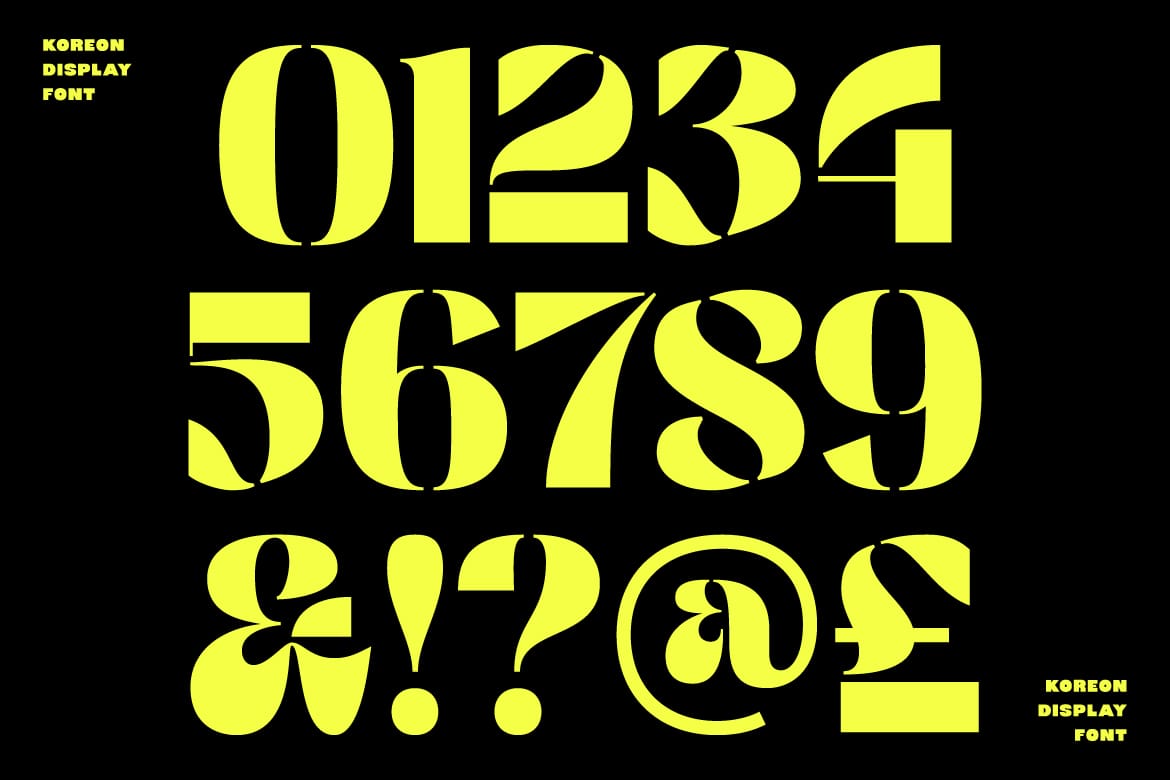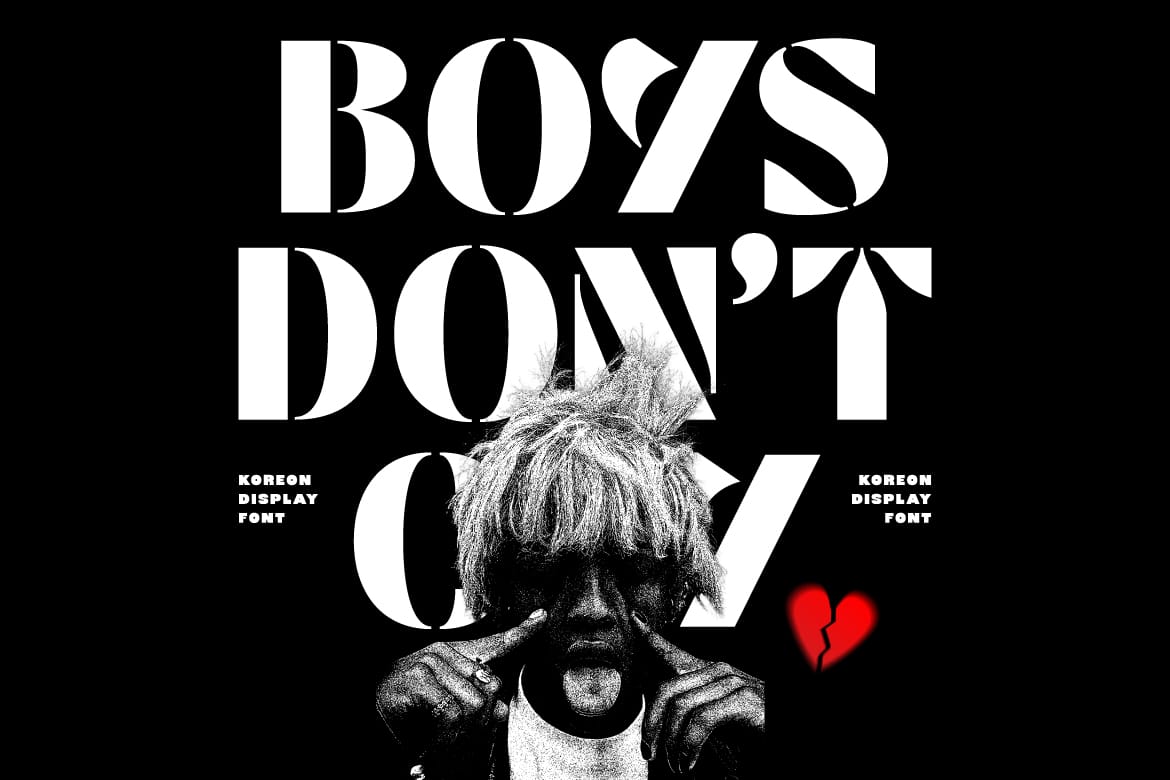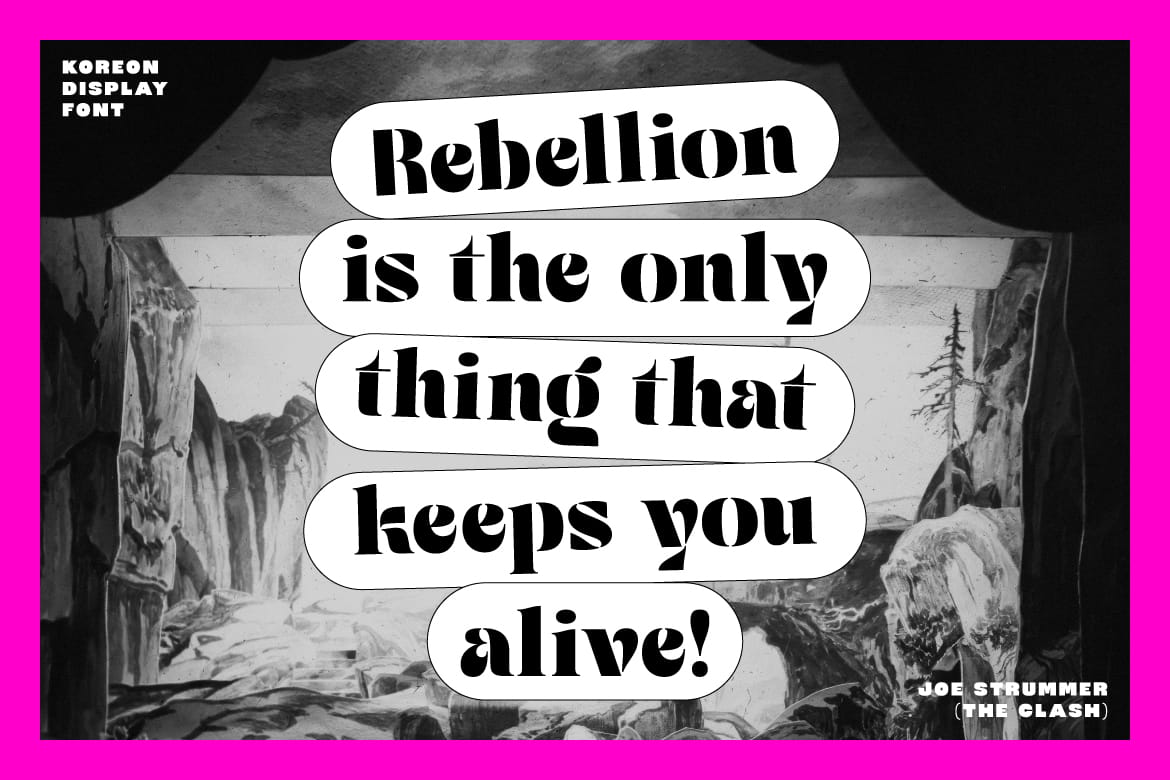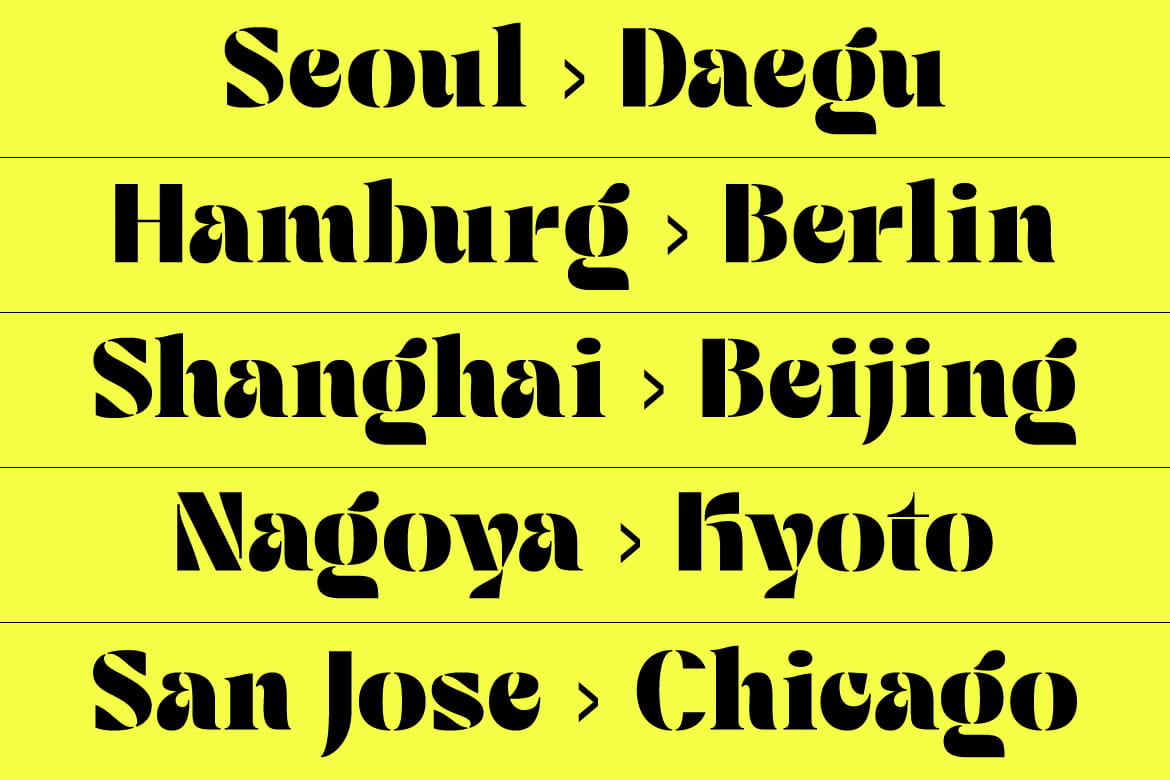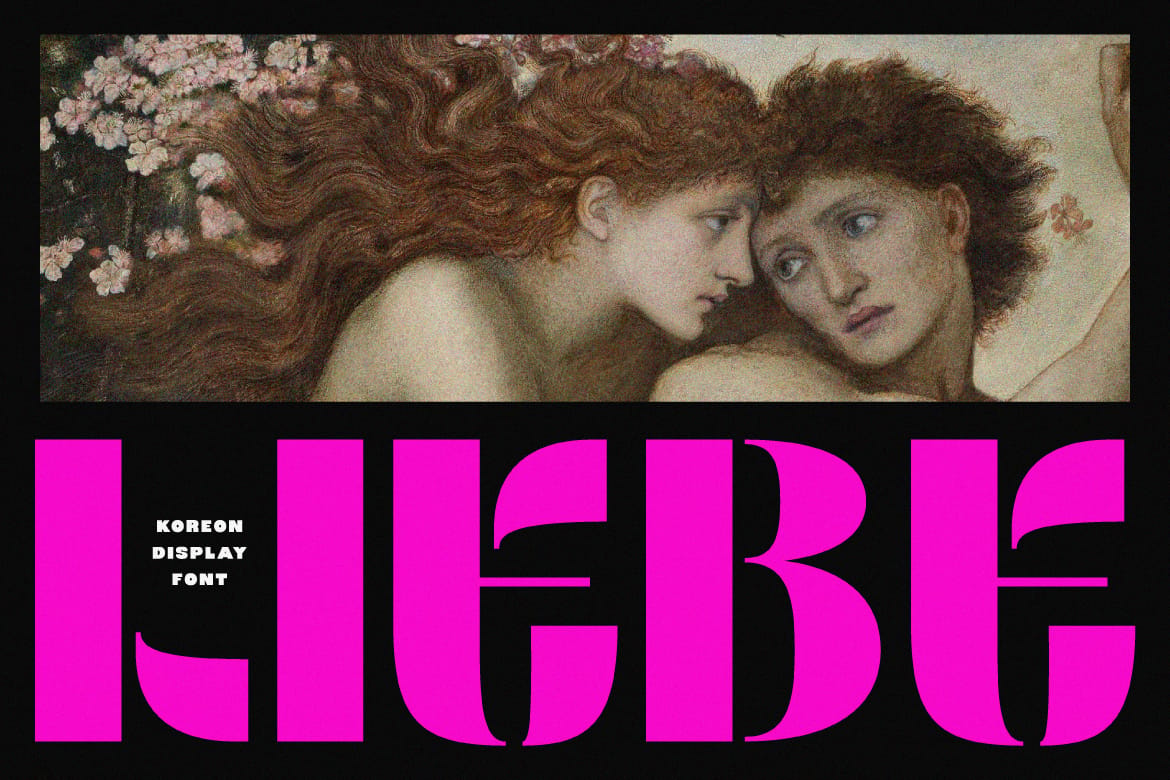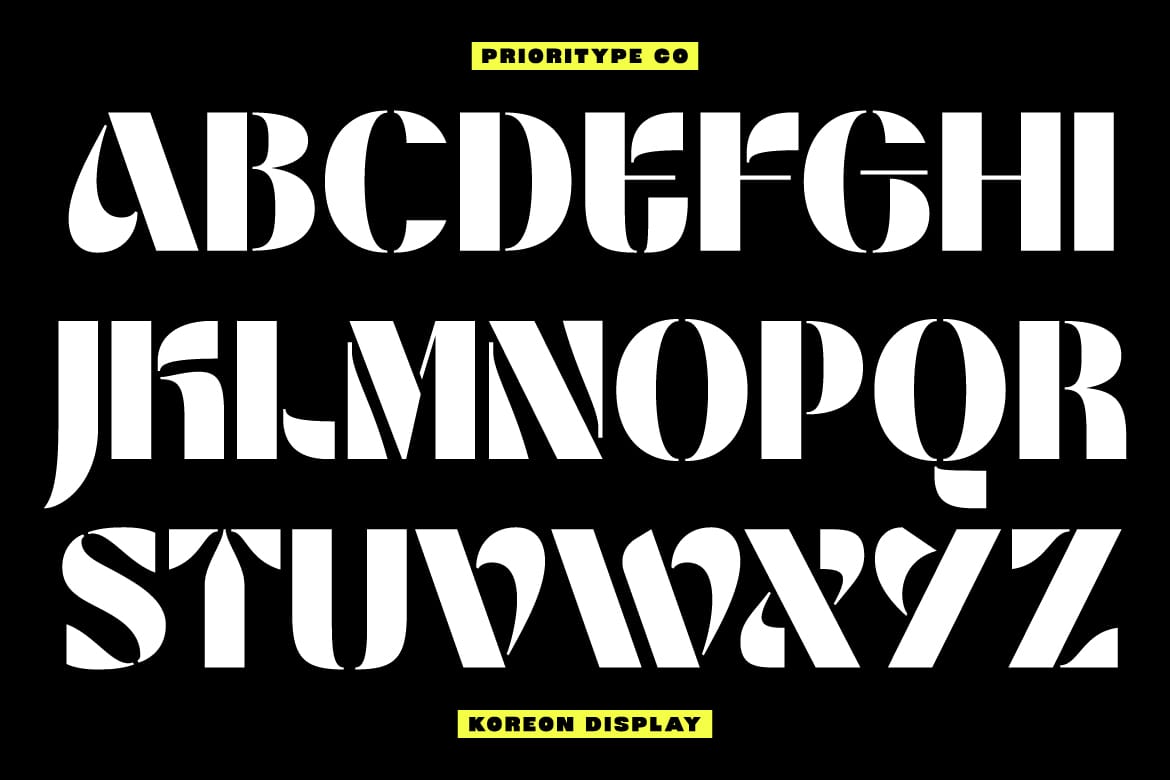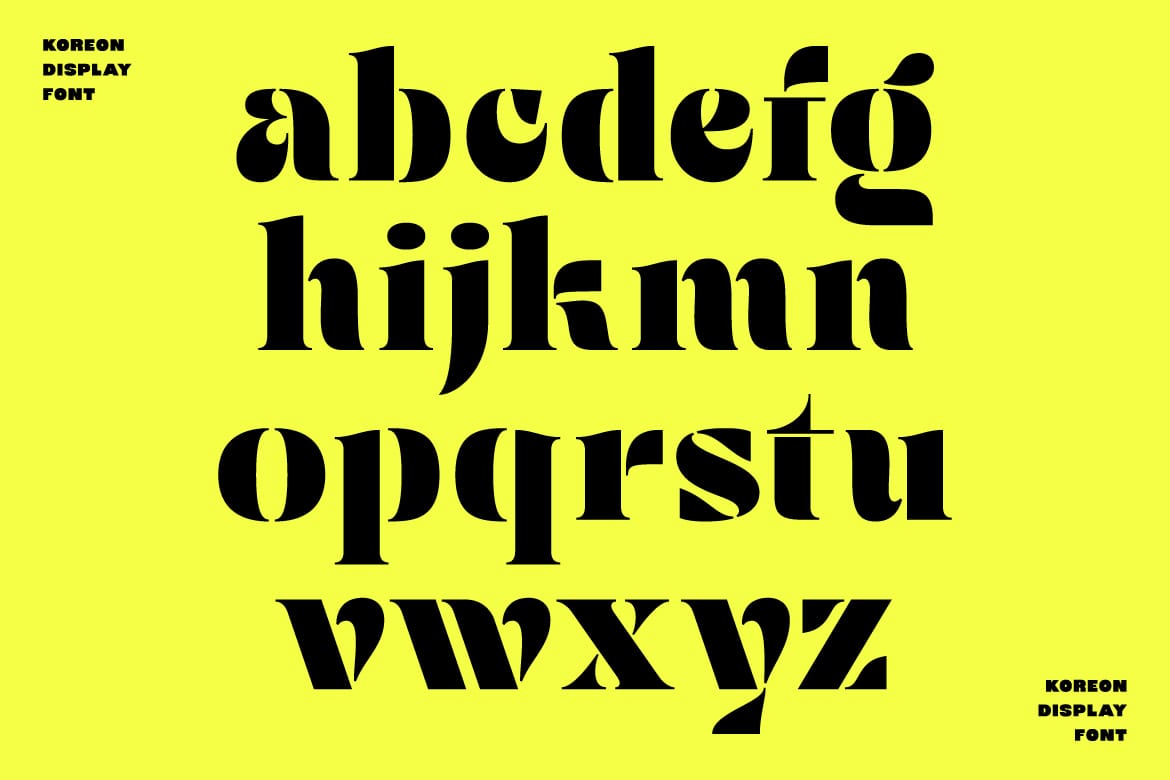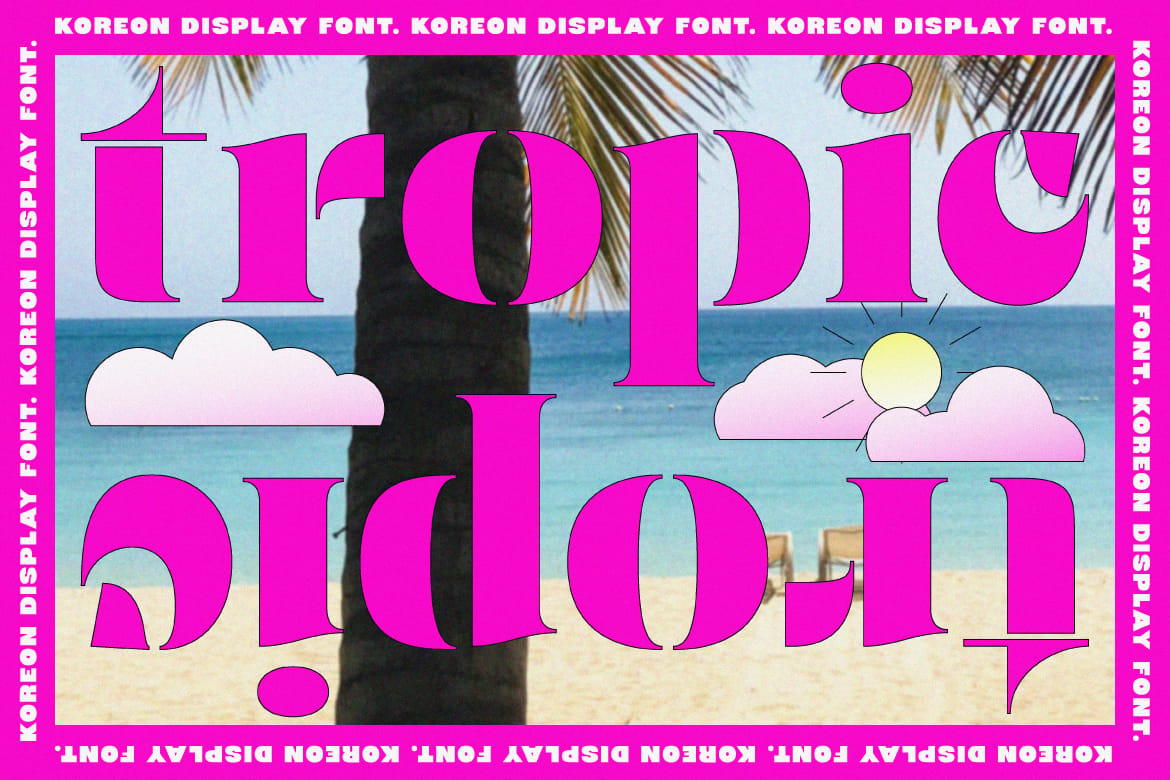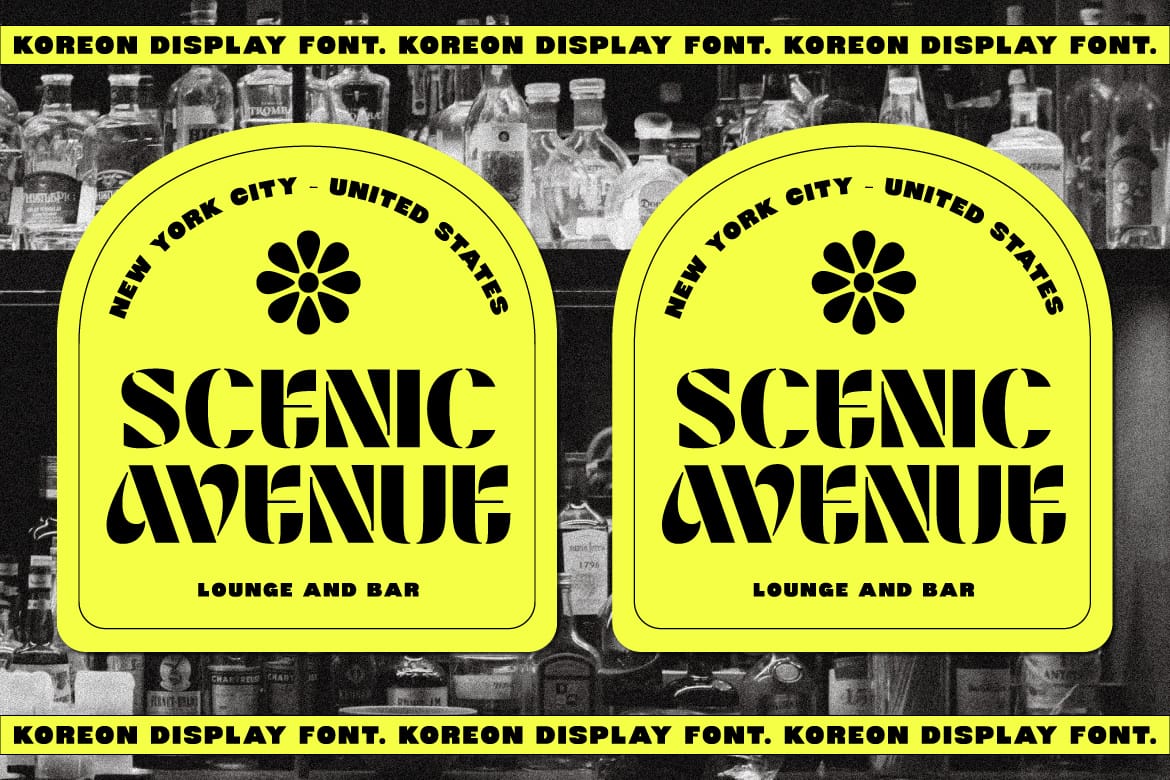
Koreon Display - Stencil Font
Koreon Display is a striking stencil display font characterized by its bold and captivating letterforms. Each character is meticulously crafted to stand out, making it memorable and distinctive. This font is perfectly suited for branding projects, logos, posters, and other design applications where you want to make a bold statement. With its unique style and versatility, Koreon Display will surely elevate your designs and leave a lasting impression.
- Bold stencil display typeface
- Distinctive letterforms for bold statements